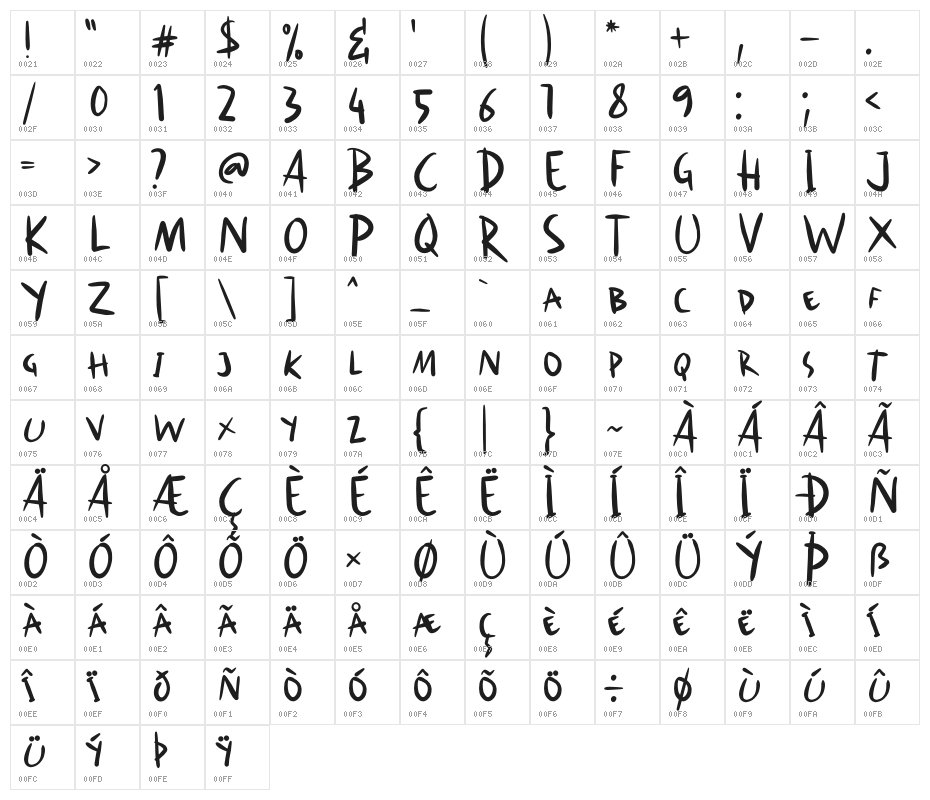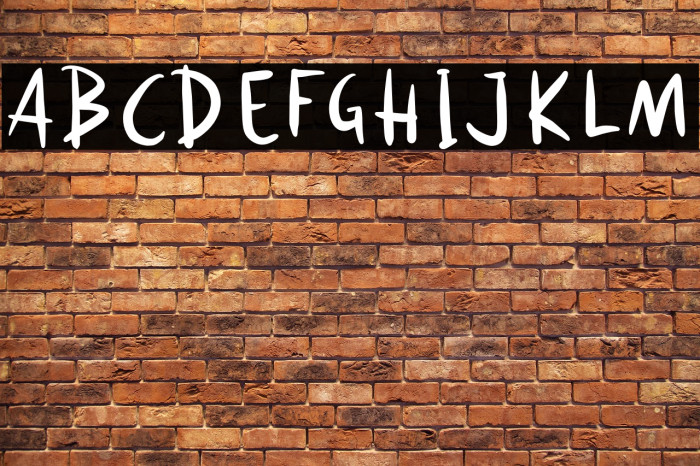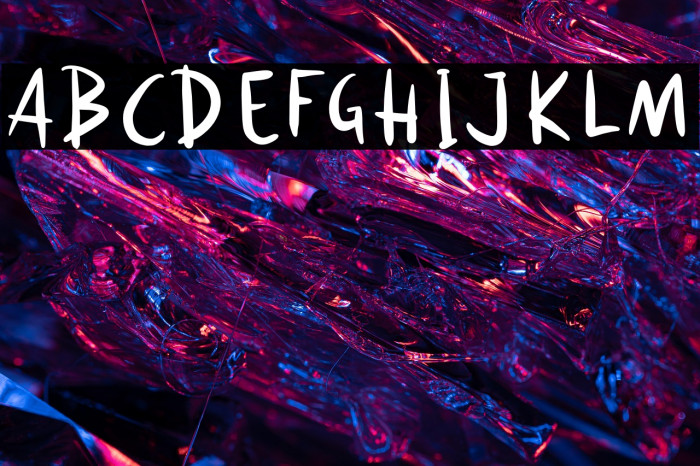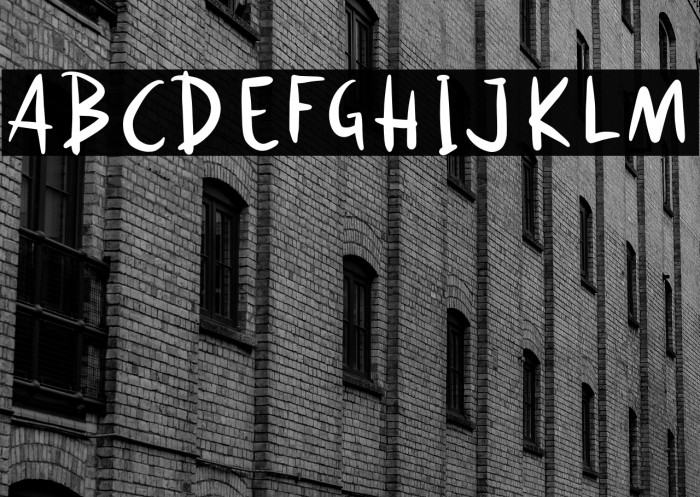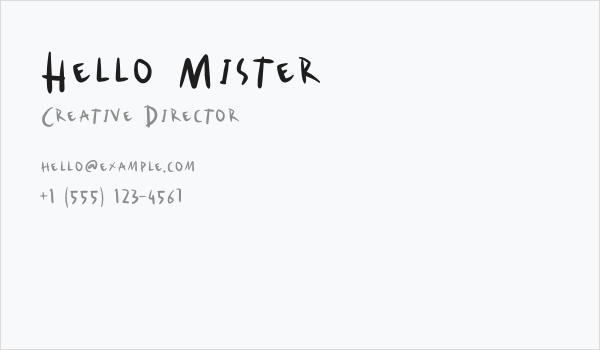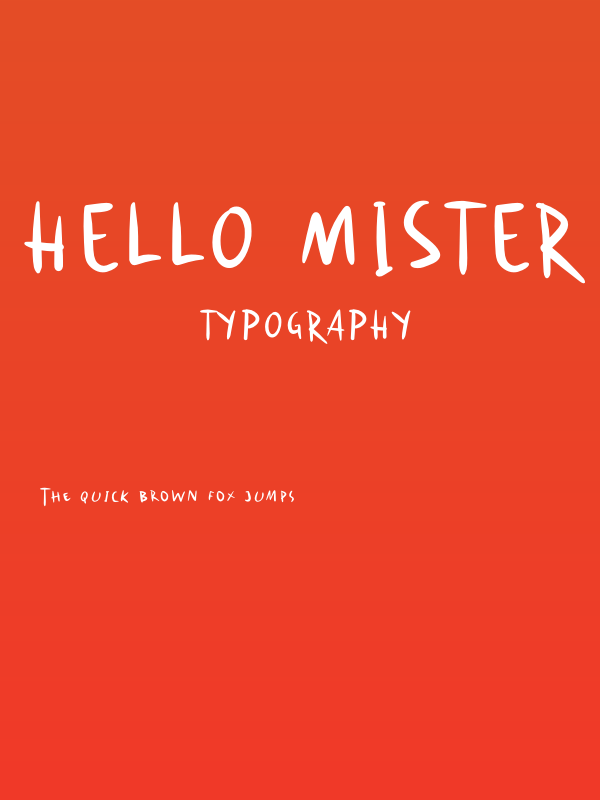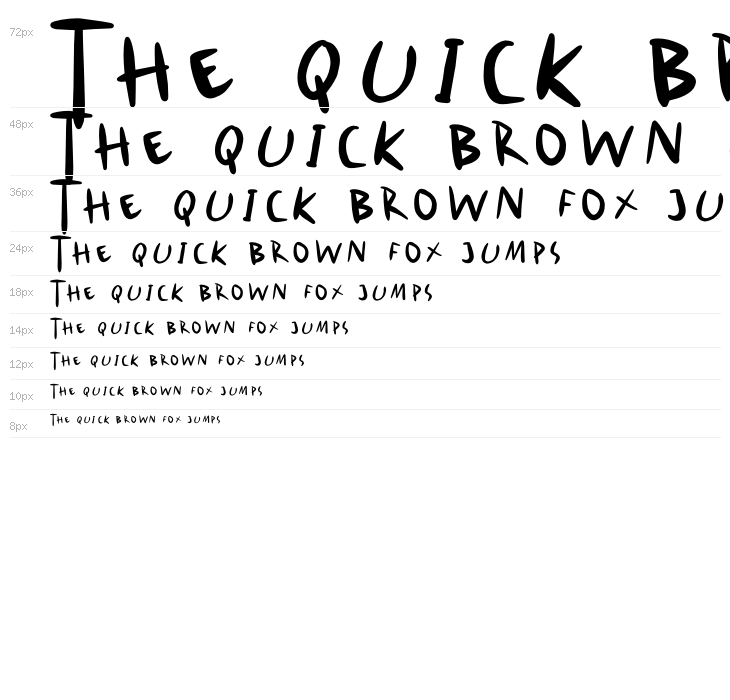
Hello Mister Font
Hello Mister Description
This font features a playful and informal handwritten style, characterized by its irregular strokes and casual appearance. The uppercase and lowercase letters maintain a consistent flow, with slightly varying heights and widths that add to its charm. The numerals and special characters follow the same whimsical design, making the font versatile for creative projects. The strokes are moderately thick, providing a bold presence without overwhelming the design. This font's unique personality makes it ideal for projects that require a personal touch or a friendly, approachable aesthetic.
| Overall Style | Casual, Playful |
| Use Case | Headlines, Informal text, Creative projects |
| Proposed Projects | Ideal for greeting cards, children's books, casual branding, and social media graphics. |